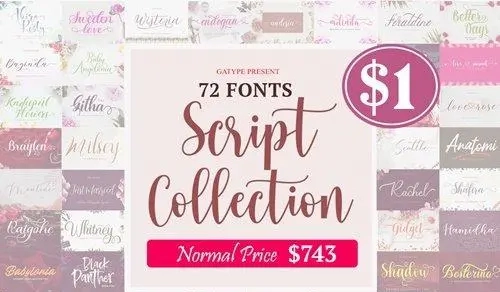
The Script Collection Bundle – 55 Premium Fonts
The Script Collection Bundle features 55 premium fonts that are perfect for a variety of design projects. This extensive collection includes a range of script styles, from elegant and flowing to bold and modern, allowing for versatile applications in both digital and print media.
• 55 unique script fonts
• Multiple weights and styles
Each font in this bundle is crafted with attention to detail, ensuring smooth curves and legible characters. The variety of styles allows you to choose the perfect font for branding, logos, invitations, and more.